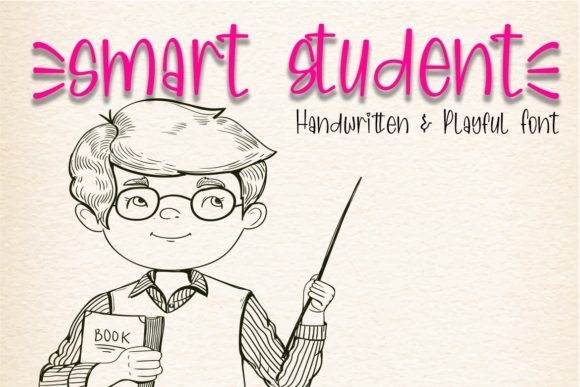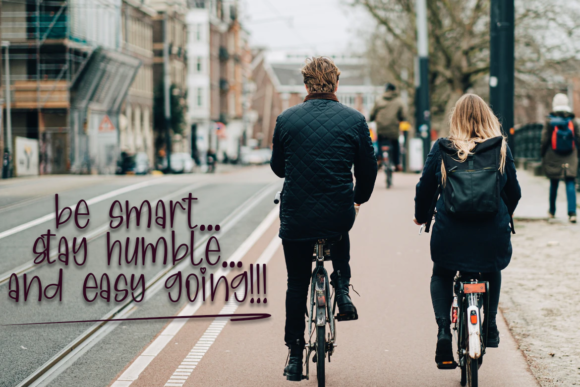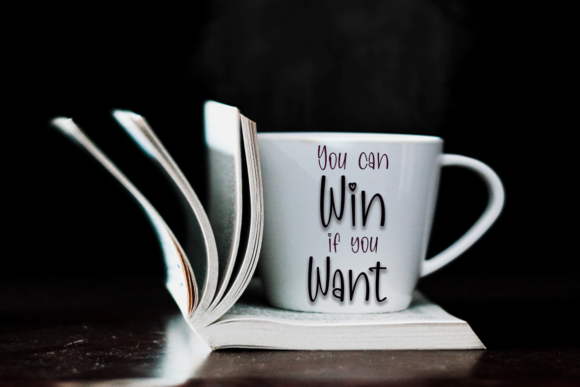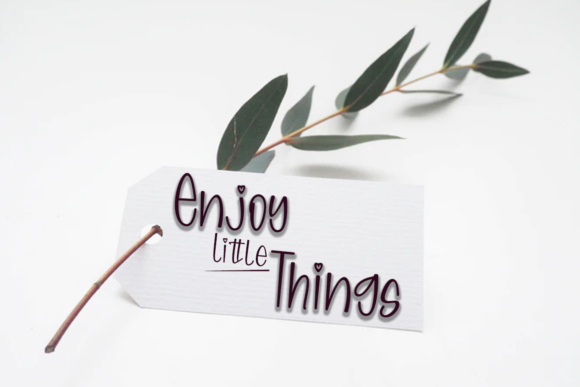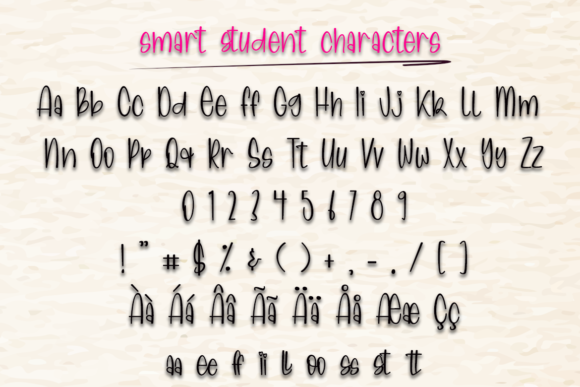
About Smart Student Font
Introducing “Smart Student,” a simple and neat lettered handwritten font that exudes a natural and unique style. With its clean and straightforward design, this font is incredibly versatile, making it a perfect fit for a wide range of designs. Let your creativity run wild because the possibilities are limitless!
With its handcrafted feel and charming simplicity, “Smart Student” adds a touch of authenticity and warmth to your projects. Whether you’re designing educational materials, book covers, social media posts, or any other creative endeavor, this font adapts effortlessly, making your work stand out with its genuine and approachable appearance.
The clean lines and balanced characters of “Smart Student” create a sense of clarity and readability, ensuring that your message is delivered with clarity and precision. Its natural flow and understated elegance allow it to seamlessly blend into various design themes and styles, catering to both playful and serious contexts.
Use “Smart Student” to create beautiful and engaging designs for academic-related projects, stationery, branding, or any endeavor where a handwritten touch is needed. Its simplicity and legibility make it a go-to font for conveying information effectively while maintaining a personable and relatable aesthetic.
Unleash your imagination and let “Smart Student” inspire your creative pursuits. Whether you’re a student, teacher, or design enthusiast, this font invites you to explore its unique style and make your projects truly one-of-a-kind. With “Smart Student” as your companion, your designs will have that extra touch of authenticity and originality that sets them apart from the rest.
So, embrace the simplicity and elegance of “Smart Student” and allow your designs to speak volumes with their handwritten charm. It’s time to embark on a creative journey and let this font bring your vision to life. Enjoy the freedom and versatility that “Smart Student” offers and witness how it transforms your ideas into remarkable pieces of art!